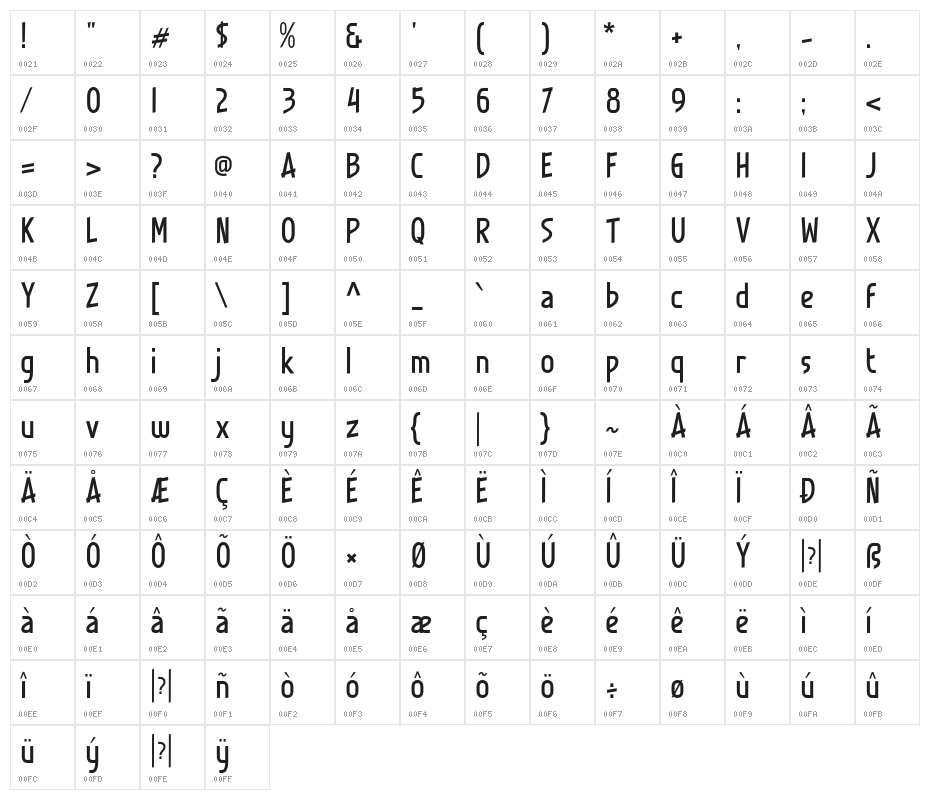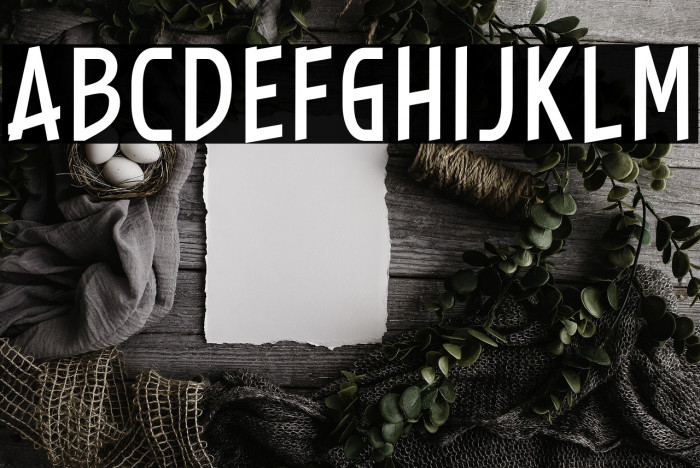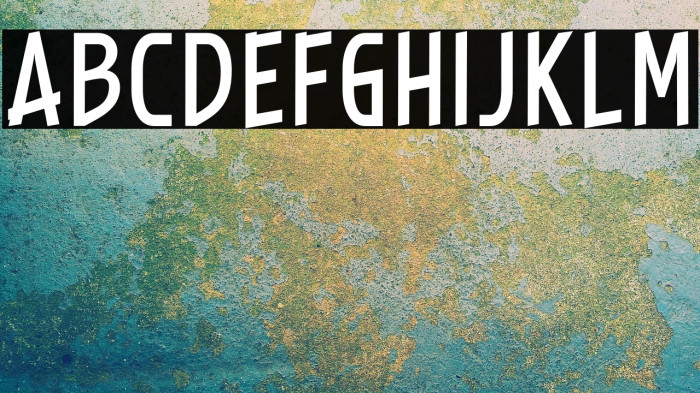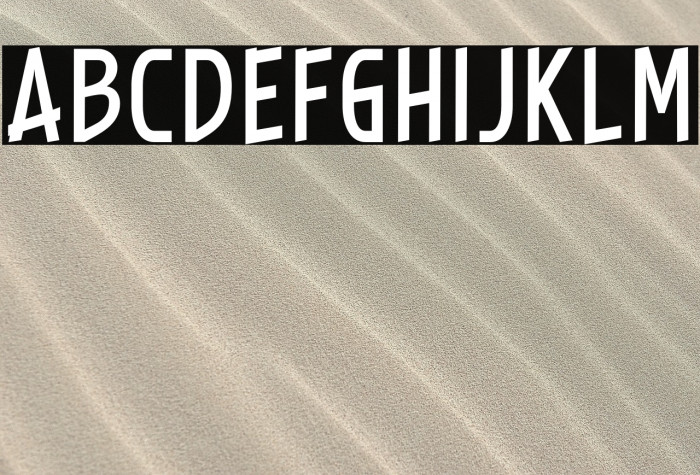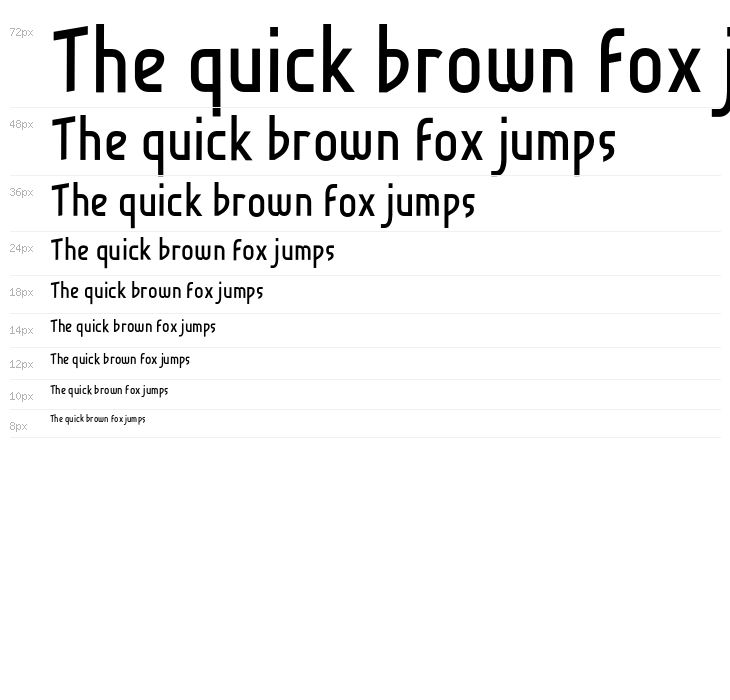
SALAMANDER Font
SALAMANDER Description
This font features a unique and modern design with a slightly condensed appearance. The characters have a distinct angularity, giving them a dynamic and energetic feel. The uppercase letters are bold and assertive, while the lowercase letters maintain a consistent style with a touch of playfulness. The numerals are clear and easy to read, complementing the overall aesthetic. Special characters are well-integrated, maintaining the font's cohesive look. This font is versatile, suitable for a variety of design projects that require a contemporary and edgy touch.